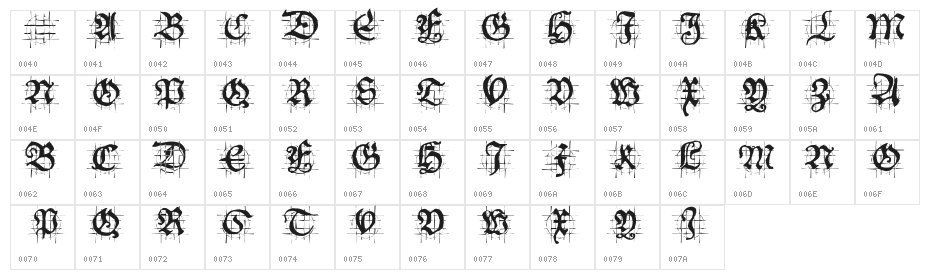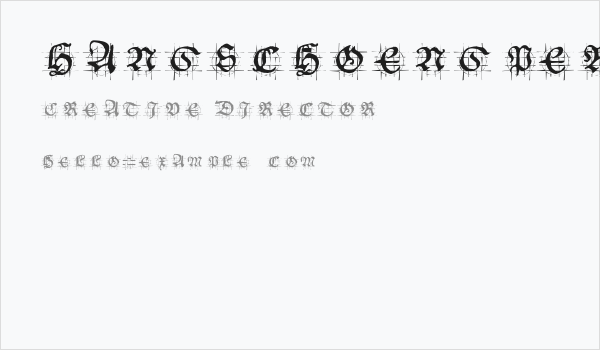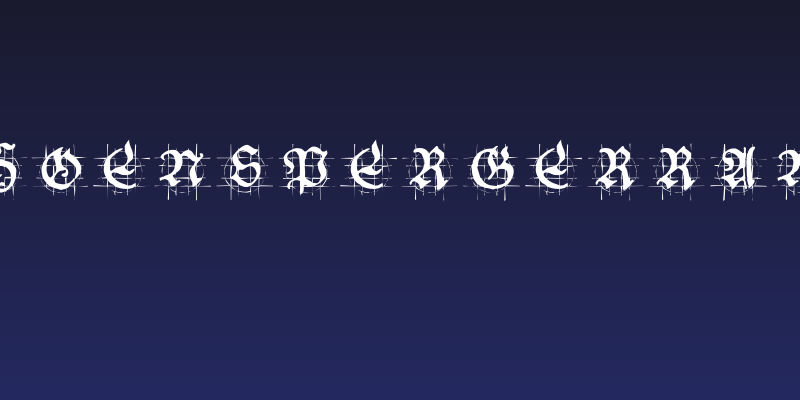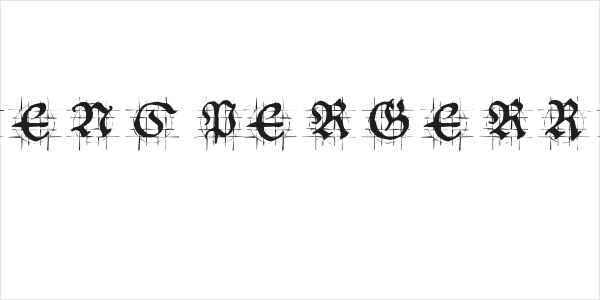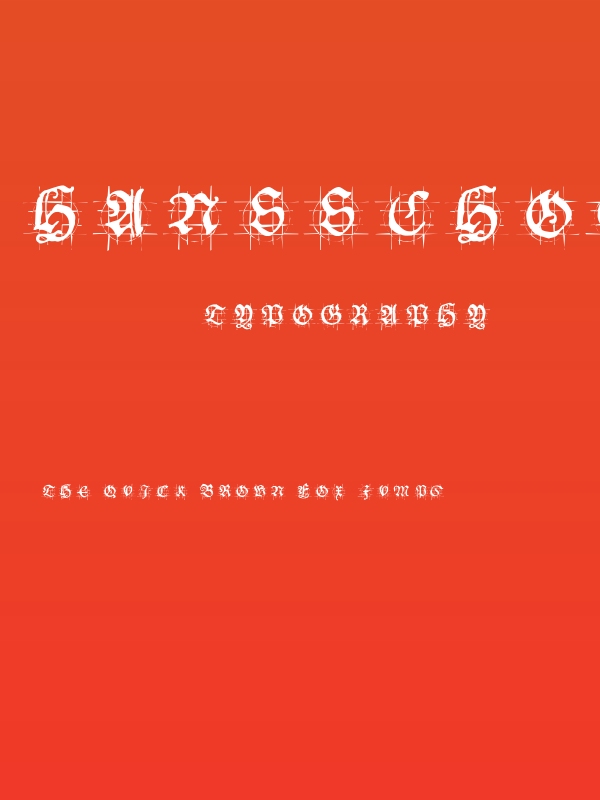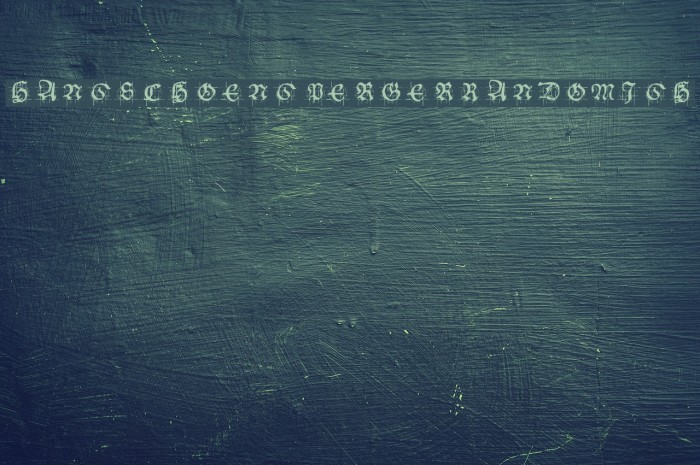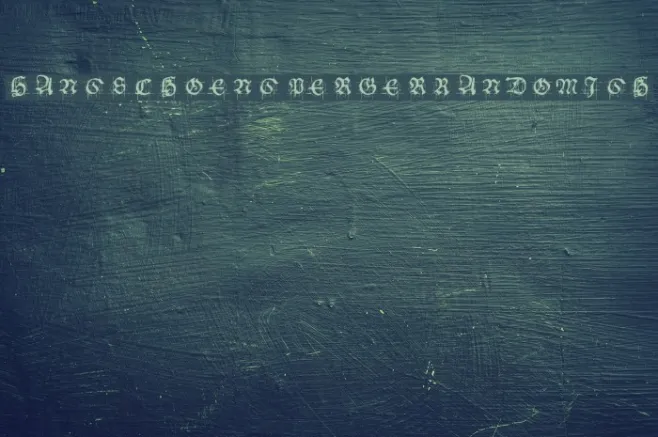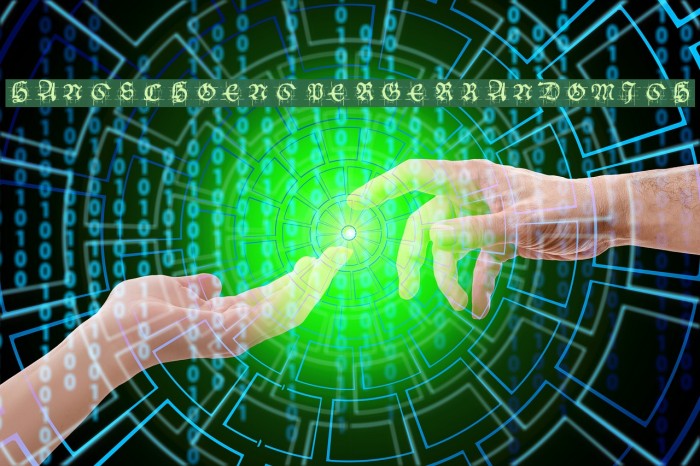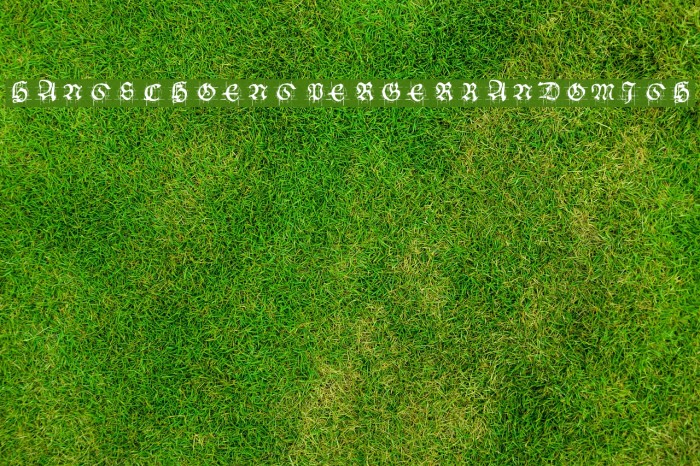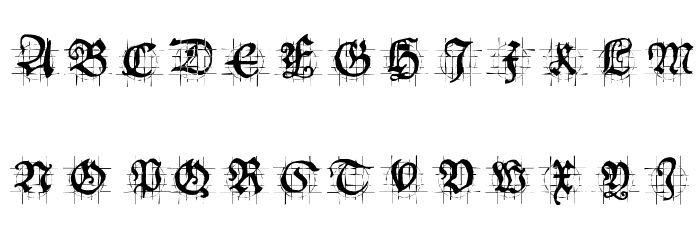
HansSchoenspergerRandomish Font
This font exhibits a classic blackletter style, characterized by its intricate and ornate letterforms. Each character is adorned with elaborate flourishes and sharp angles, reminiscent of medieval script. The bold strokes and high contrast between thick and thin lines give it a dramatic and historical appearance. The decorative elements within each letter add a sense of complexity and artistry, making it suitable for projects that require a touch of elegance and tradition. The font maintains a consistent style across both uppercase and lowercase letters, with a distinct gothic influence that is both striking and memorable.
| Proposed Projects | Ideal for historical documents, wedding invitations, book covers, and branding that requires a vintage or medieval aesthetic. |